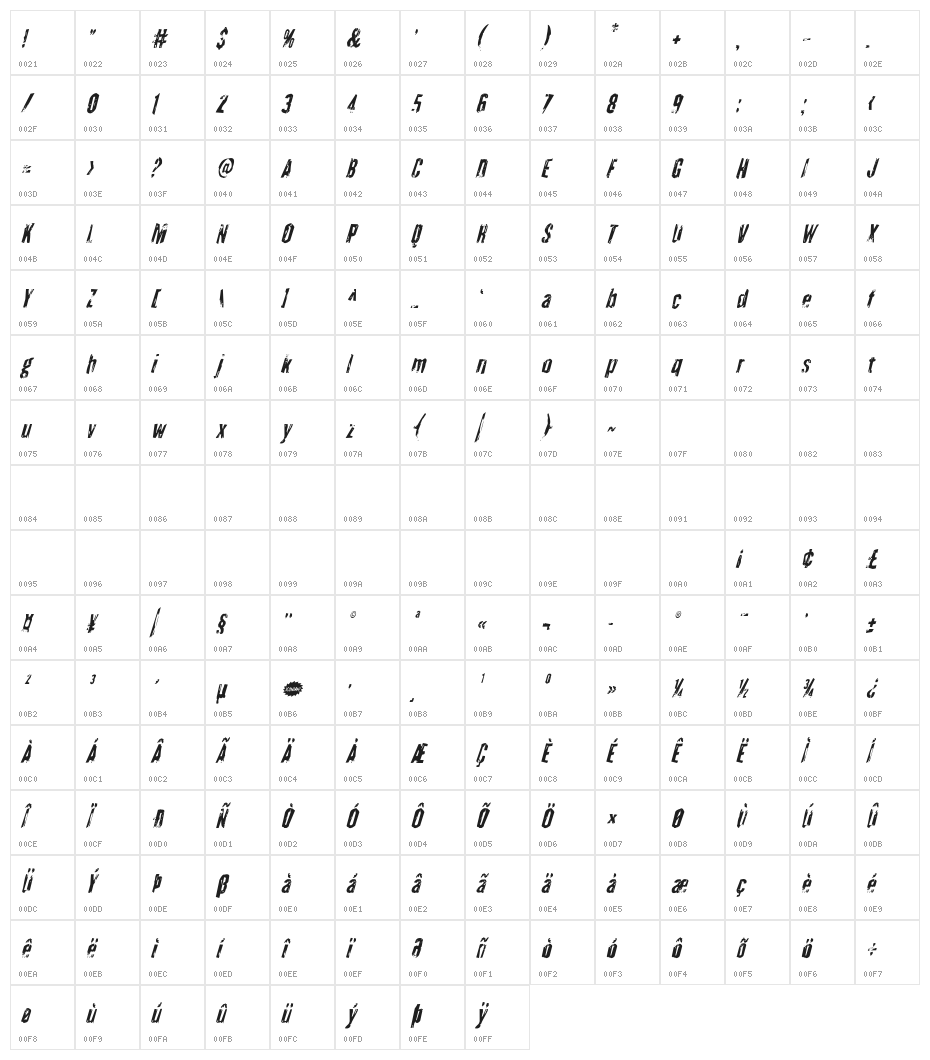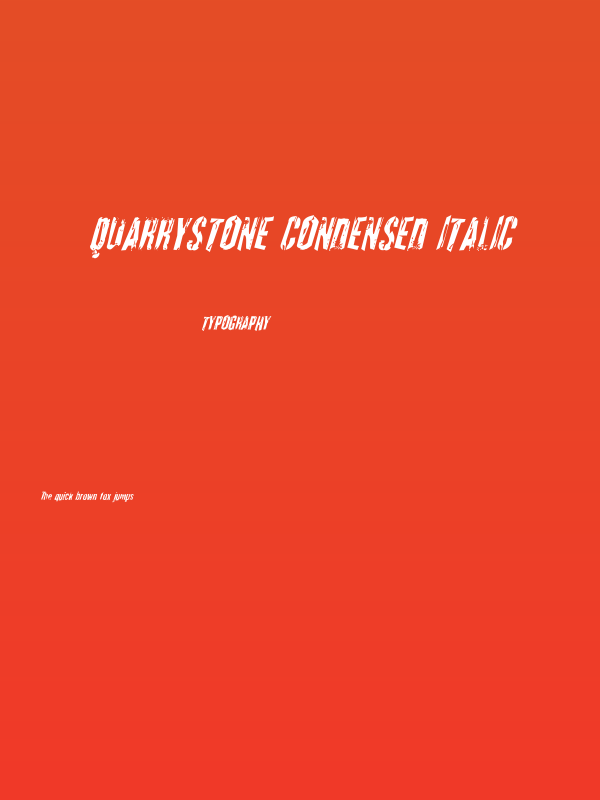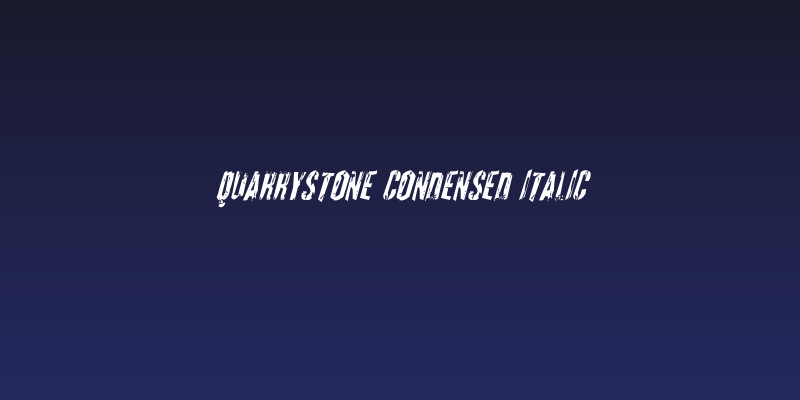
Quarrystone Condensed Italic Font
Quarrystone Condensed Italic Description
This font features a rugged, distressed appearance with a condensed and italicized style. The characters are bold and have a rough texture, giving them a weathered, vintage look. The uppercase and lowercase letters maintain a consistent slant, enhancing the italic effect. Numbers and special characters follow the same design, ensuring uniformity across all glyphs. The font's unique texture and style make it stand out, ideal for projects that require a bold, impactful statement.